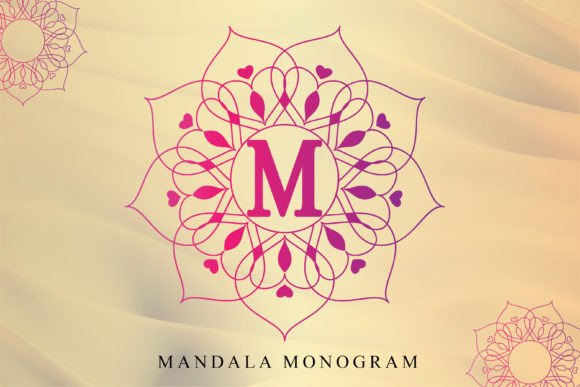
Step into the realm of elegance and sophistication with Mandala Monogram Font, a captivating monogram decorative font that will transform your creative visions into mesmerizing realities. With its intricate details and captivating curves, this font is the perfect choice for those seeking a unique touch to their designs.
Unleash your creativity and let Mandala Monogram Font enhance your love letters, wedding invitations, and cherished design ideas. Witness the transformation as ordinary words morph into exquisite pieces of art, captivating the hearts of your loved ones and leaving a lasting impression.
Mandala Monogram Font possesses a remarkable versatility, effortlessly adapting to a myriad of design concepts. From formal invitations to personal projects, this font seamlessly blends with your vision, adding an air of sophistication and charm. Whether you're designing a wedding hashtag or creating a heartfelt letter, Mandala Monogram Font will elevate your words and make them shine.
Experience the beauty of Mandala Monogram Font and witness the magic it brings to your designs. Dive into a world of elegance and creativity, where words dance with grace and captivate the senses. Let this font be your artistic muse, guiding you towards design masterpieces that leave a lasting impact. Embrace Mandala Monogram Font and embark on a journey of artistic exploration and self-expression.